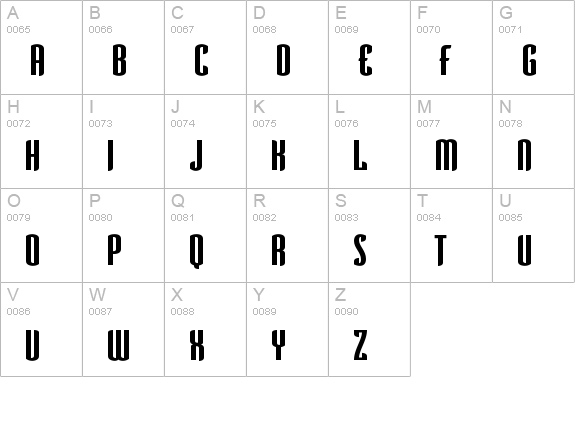
Verve Std Bold is a strong, high-contrast variant in the Verve typeface family \xE2\x80\x94 well suited to headlines, attention-grabbing titles, and strong calls-to-action.
Verve Std Bold is a captivating and versatile font that exudes confidence and modernity. With its bold and strong letterforms, this font commands attention and makes a bold statement in any design project. The sleek and stylish nature of Verve Std Bold makes it perfect for headlines, logos, posters, and any other design element that requires a strong visual impact. Its clean and crisp lines ensure legibility even at smaller sizes, making it suitable for both print and digital applications. But what sets Verve Std Bold apart is its accessibility. This font is freely available to download at FontsMarket.com, allowing designers and creatives to incorporate it into their projects without any hassle. Whether you're working on personal or commercial projects, the availability of the font for free makes it an excellent choice for anyone looking to add a touch of boldness and sophistication to their designs. Verve Std Bold is a must-have in any font library, as it effortlessly combines modernity with a timeless appeal. Its versatility makes it suitable for a wide range of design styles, from contemporary to minimalist and everything in between. With its bold presence and free availability, Verve Std Bold is a font that truly stands out from the crowd.